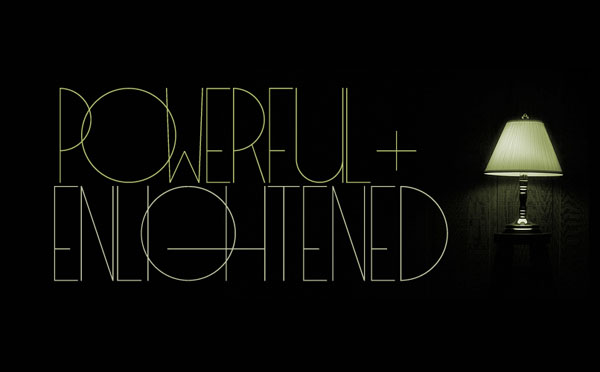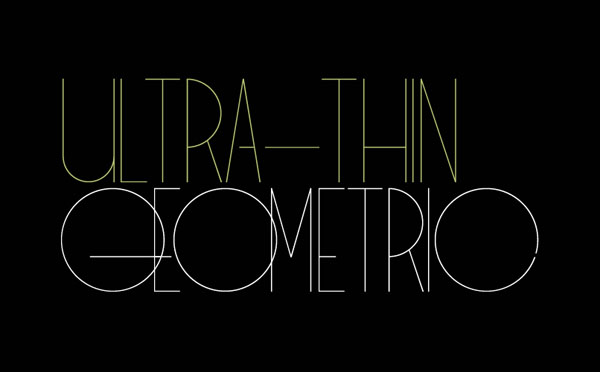
FOSU Font.
FOSU is a geometric extra thin font from foundry sindsindsind that is entirely uppercase. The font supports most international characters as well as numbers and symbols. FOSU is the perfect choice for modern editorial and identity work.